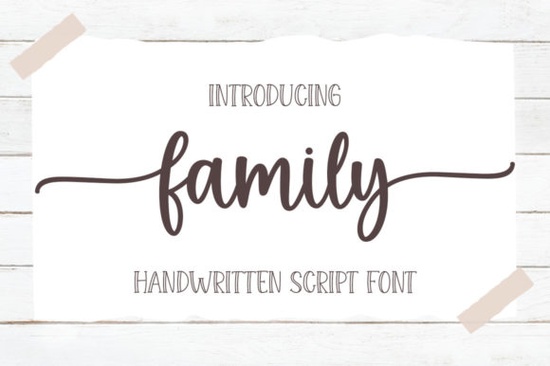
If you're looking for a script font that feels personal, graceful, and quietly confident like handwriting from someone who knows exactly what they’re saying Family Font is worth your attention. It’s not flashy or overly ornate, but it carries real presence: fine strokes, subtle contrast, and a natural rhythm that makes it easy to read at larger sizes and charmingly intimate at smaller ones. Designers and crafters often reach for it when they want elegance without stiffness think wedding stationery, boutique product labels, or heartfelt greeting cards.
What makes Family Font different from other script fonts?
Most script fonts fall into one of two camps: either they’re highly decorative (great for headlines, harder to pair) or very minimal (safe, but sometimes forgettable). Family Font sits comfortably in the middle. Its lowercase letters have gentle curves and soft entry/exit strokes not too tight, not too loose. Uppercase letters include stylish alternates, and common letter combinations (like “th”, “er”, or “ou”) come with built-in ligatures that flow naturally instead of clashing.
Who uses Family Font and how?
Small business owners use it for branding touches that feel handmade but polished like a café logo on a chalkboard menu or a candle label where “hand-poured” needs to look sincere, not staged. Crafters appreciate how cleanly it cuts on vinyl and how legibly it embroiders at medium sizes (30–45 pt works well for hoop-ready designs). Print-on-demand sellers often combine it with neutral typefaces to keep listings feeling warm and intentional especially in niches like motherhood, self-care, or home decor.
You don’t need advanced typography knowledge to get good results. Try pairing Family Font with a clean, low-contrast sans-serif (like Montserrat Light or Inter Regular) for balance. Or layer it over textured backgrounds linen, watercolor paper scans, or even subtle grain overlays to soften digital sharpness without losing clarity.
How does it compare to other popular script fonts on Creative Fabrica?
If you’ve used Little Love Font, you’ll notice Family Font has more consistent spacing and slightly taller x-height, making it more versatile across formats. Compared to Milkbutter Font, it’s less playful and more refined better for mature audiences or professional contexts. Stay Wonderful Font leans bolder and more condensed; Family Font breathes a little more, giving it flexibility in tighter layouts.
It shares some of the lyrical quality of Wonderful Butterfly Font, but with fewer exaggerated swirls so it holds up better in longer phrases. And while Hello Honey Font shines in sweet, casual settings (baby announcements, bakery signs), Family Font adapts more easily to minimalist or modern aesthetics.
Where to use it and where to pause
It works beautifully for:
- Wedding invitations, vow books, and seating charts
- Personalized gifts (engraved wood signs, ceramic tags)
- Social media quote graphics especially Instagram carousels or Pinterest pins
- Small-run packaging (soap wraps, tea box labels, seed packet headers)
Avoid using it for body text under 24 pt, all-caps headlines (unless stylized intentionally), or dense paragraphs it’s meant to be seen, not scanned. Also, test how it renders on mobile before finalizing web projects; some swashes may clip if line height is too tight.